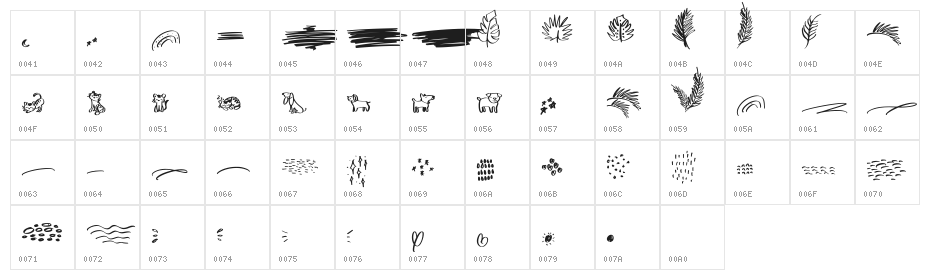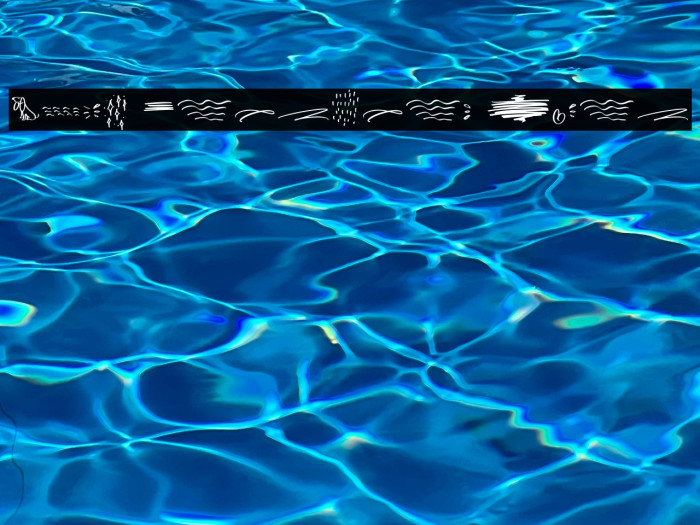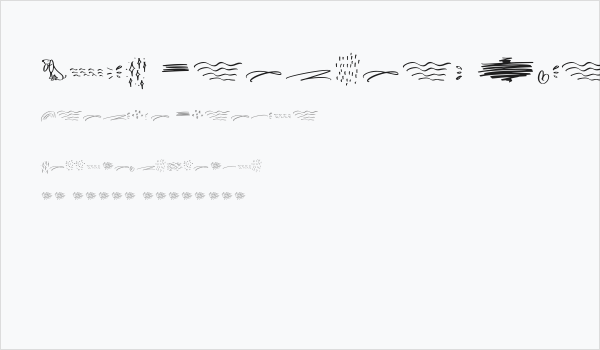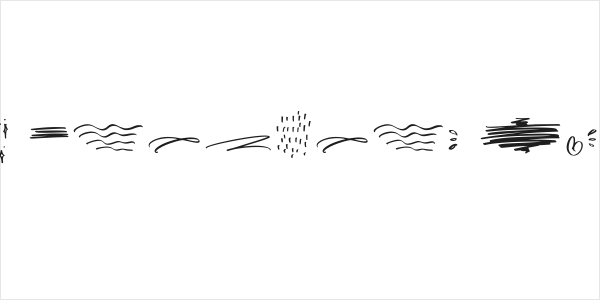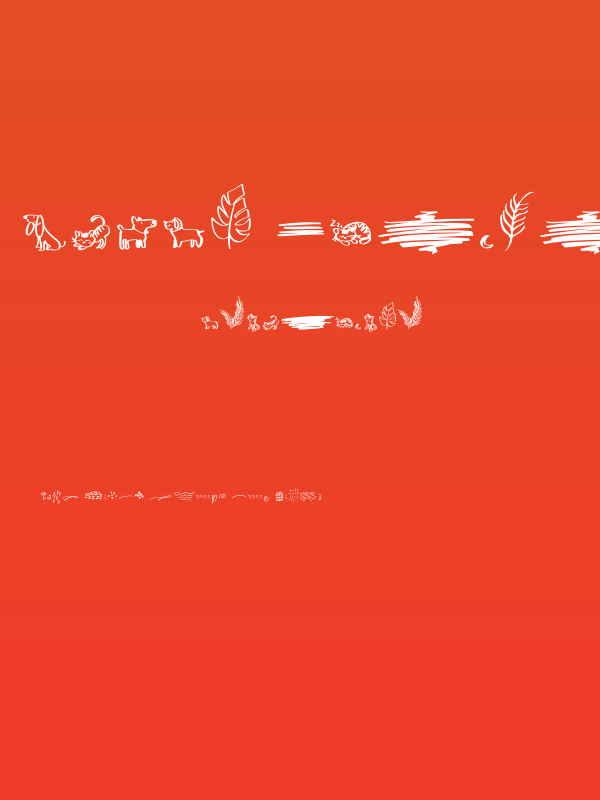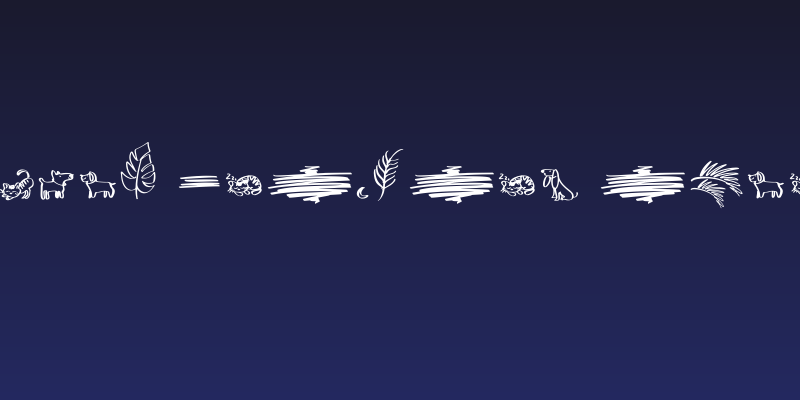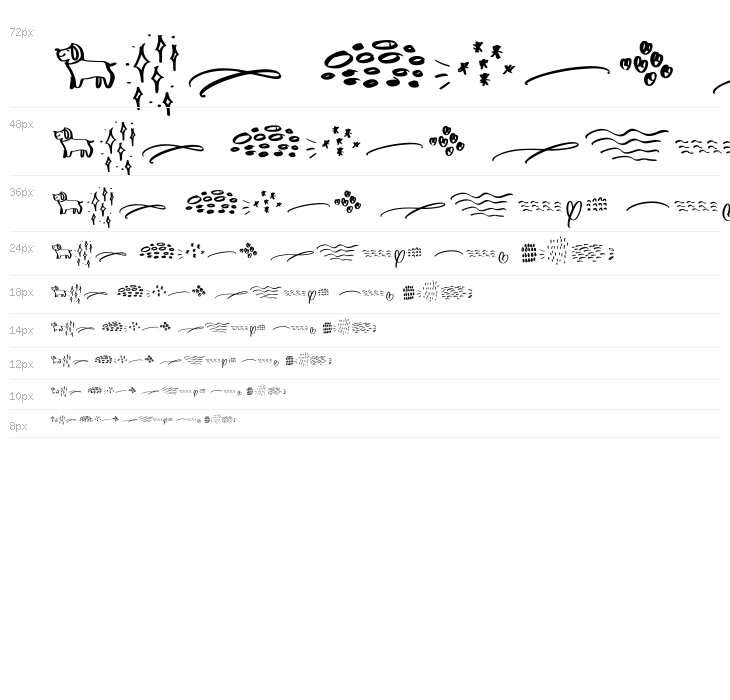
South Dreamers Extra Font
South Dreamers Extra Description
A decorative font featuring whimsical and playful doodles including animals, leaves, and abstract shapes.
| Use Case | Decorative elements, Illustrations |
| Proposed Projects | Greeting cards, children's books, playful designs. |